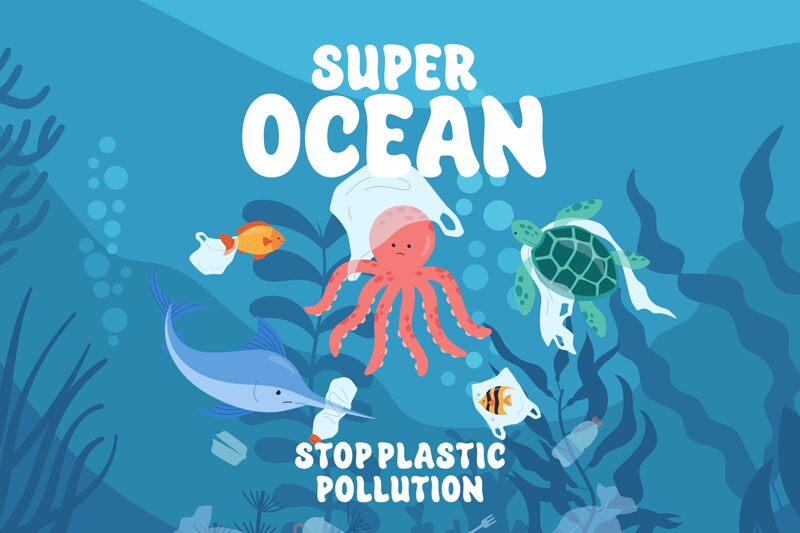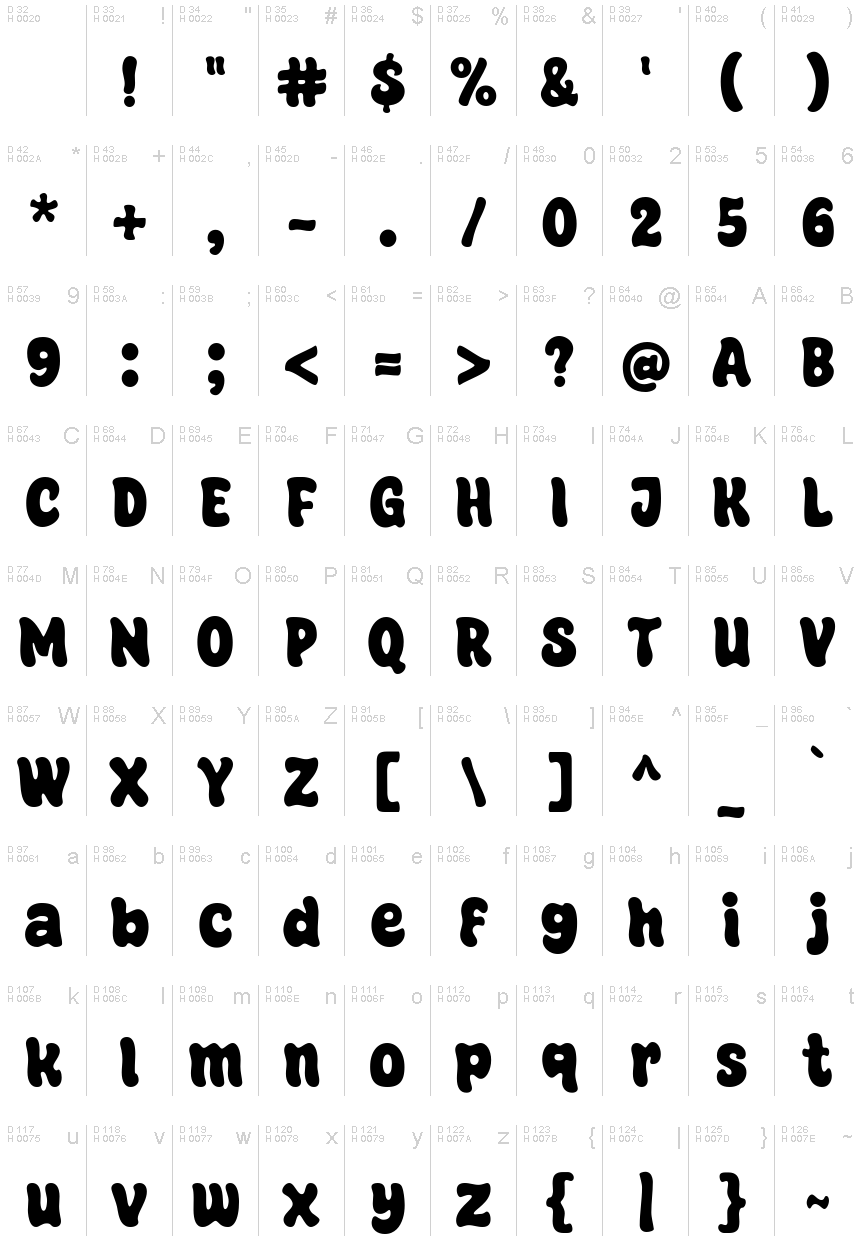
Super Ocean
Super Ocean is a typeface that captures the playful essence of a seaside adventure with its cartoon style and bold presence. Designed by fsuarez913, it's a font that stands out for its friendly curves and buoyant character, reminiscent of sunny days spent on the beach. The whimsical charm of Super Ocean makes it perfect for projects that aim to be lighthearted and fun.
Whether it’s for branding, children's books, or event invitations, this font is sure to make a splash with its delightful aesthetic.